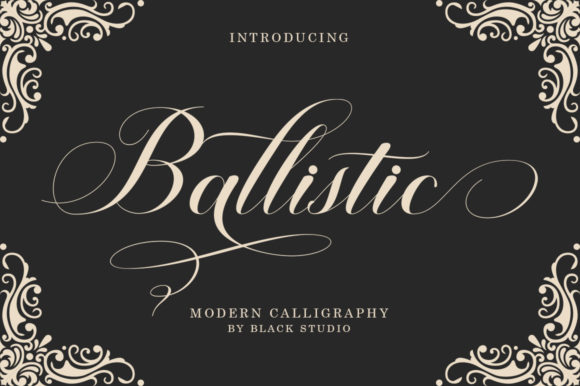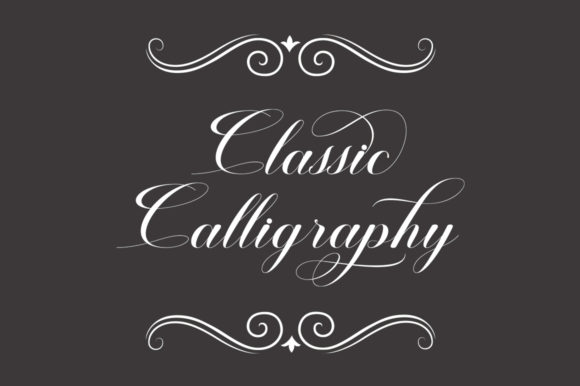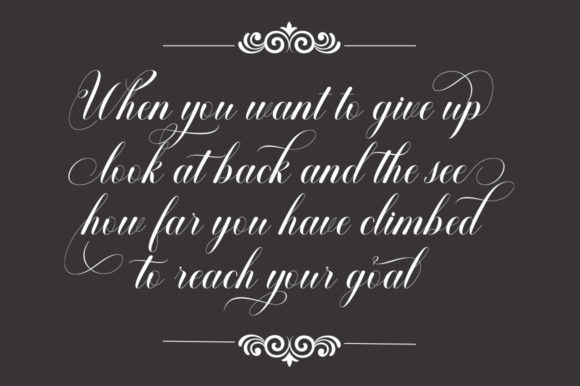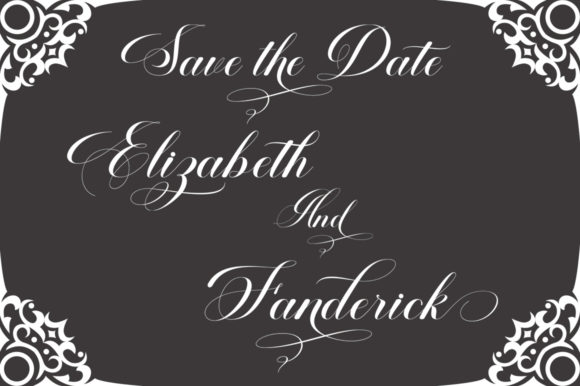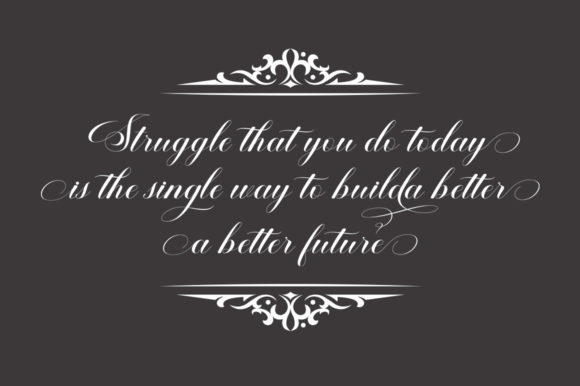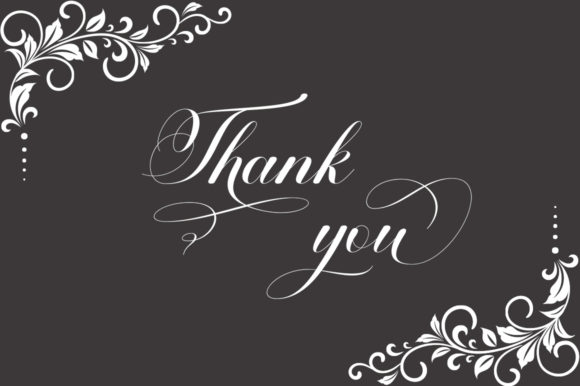
Ballistic Font
About Ballistic Font
Ballistic is a unique handwritten font. It features amazing ornaments. Fall in love with its authentic feel and use it to create gorgeous wedding invitations, beautiful stationary art, eye-catching social media posts, and cute greeting cards.